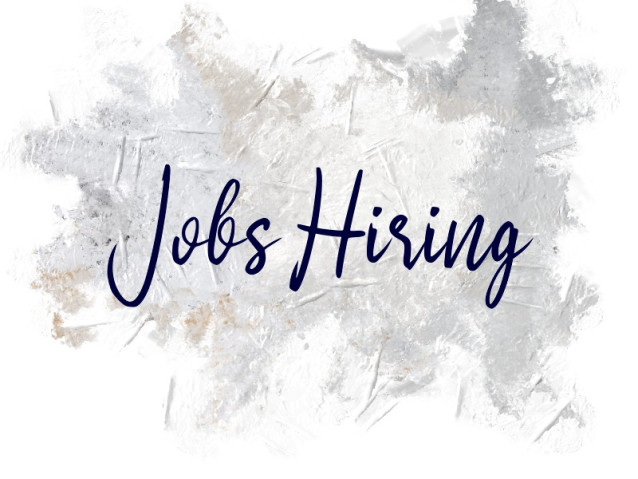
Jobs Hiring Font
Jobs Hiring Font is a simple and friendly handwritten font. Its natural and unique style makes it incredibly fitting to a large pool of designs. The only limit is your imagination!